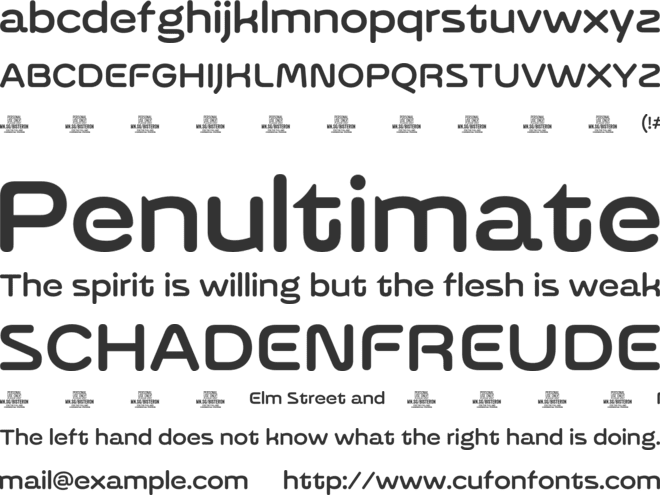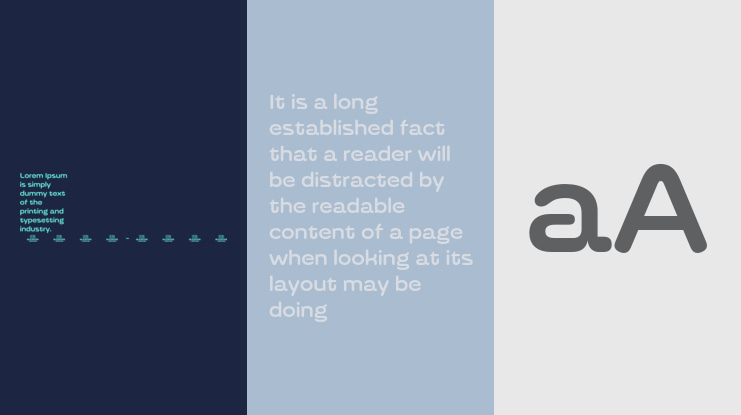
Bisteron PERSONAL USE Font
NOTE: This font is for PERSONAL USE ONLY!To purchase a commercial license, visit:https://www.mansgreback.com/product/bisteronBisteron is a clean futurist typeface with a rounded, technical feel and a calm confidence in its shapes.Built around soft corners and controlled geometry, it balances friendliness with precision. For questions, please visit https://mansgreback.com/faq